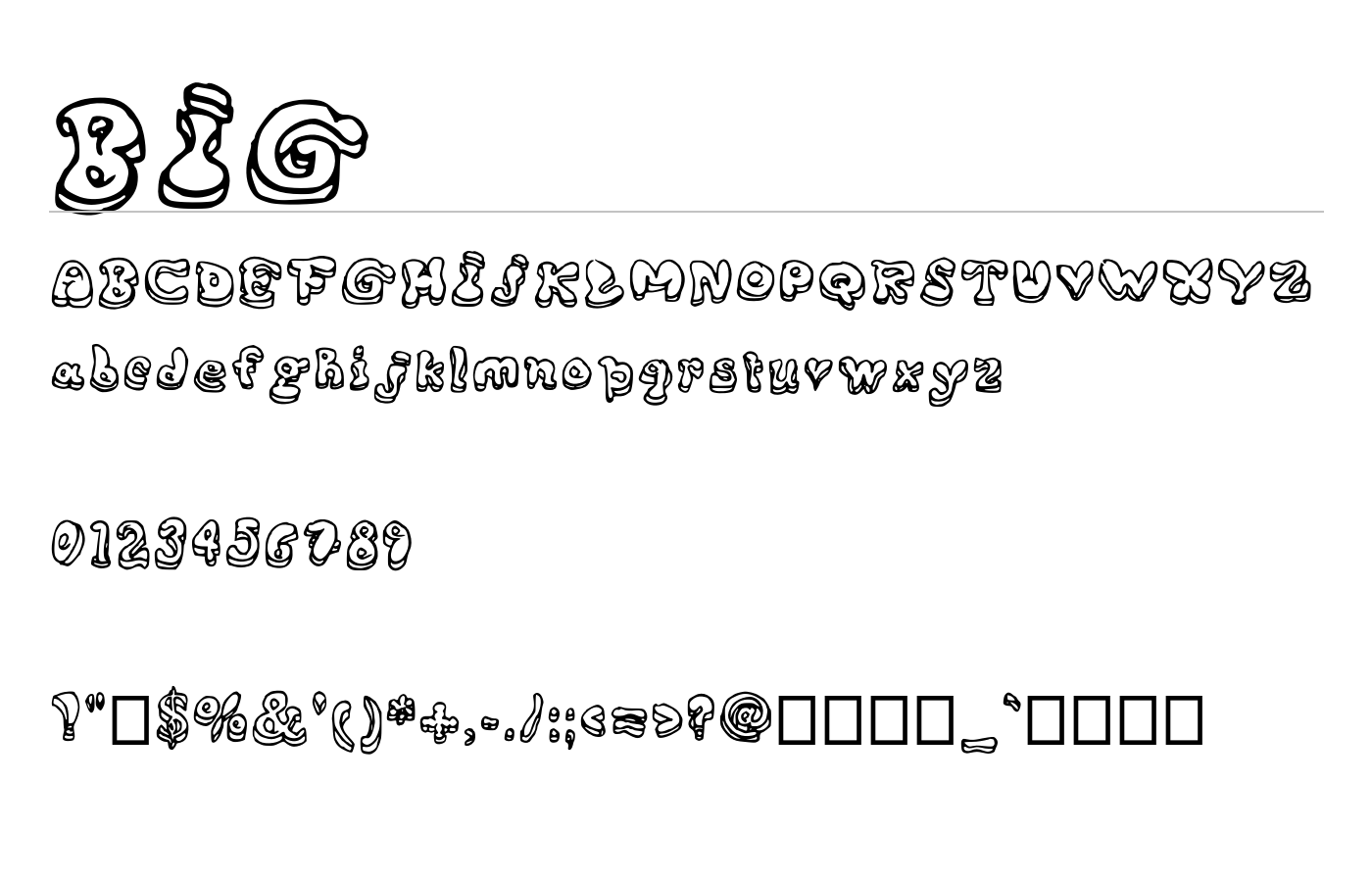
BIG Font is a playful and bold display typeface with quirky, rounded letterforms that feel hand-drawn and fun. Its thick, uneven strokes and bubbly shapes make it perfect for creative projects like children's books, posters, and branding that want to convey energy and whimsy. This font stands out best at larger sizes, bringing a joyful and approachable personality to any design.
BIG Font
About BIG Font